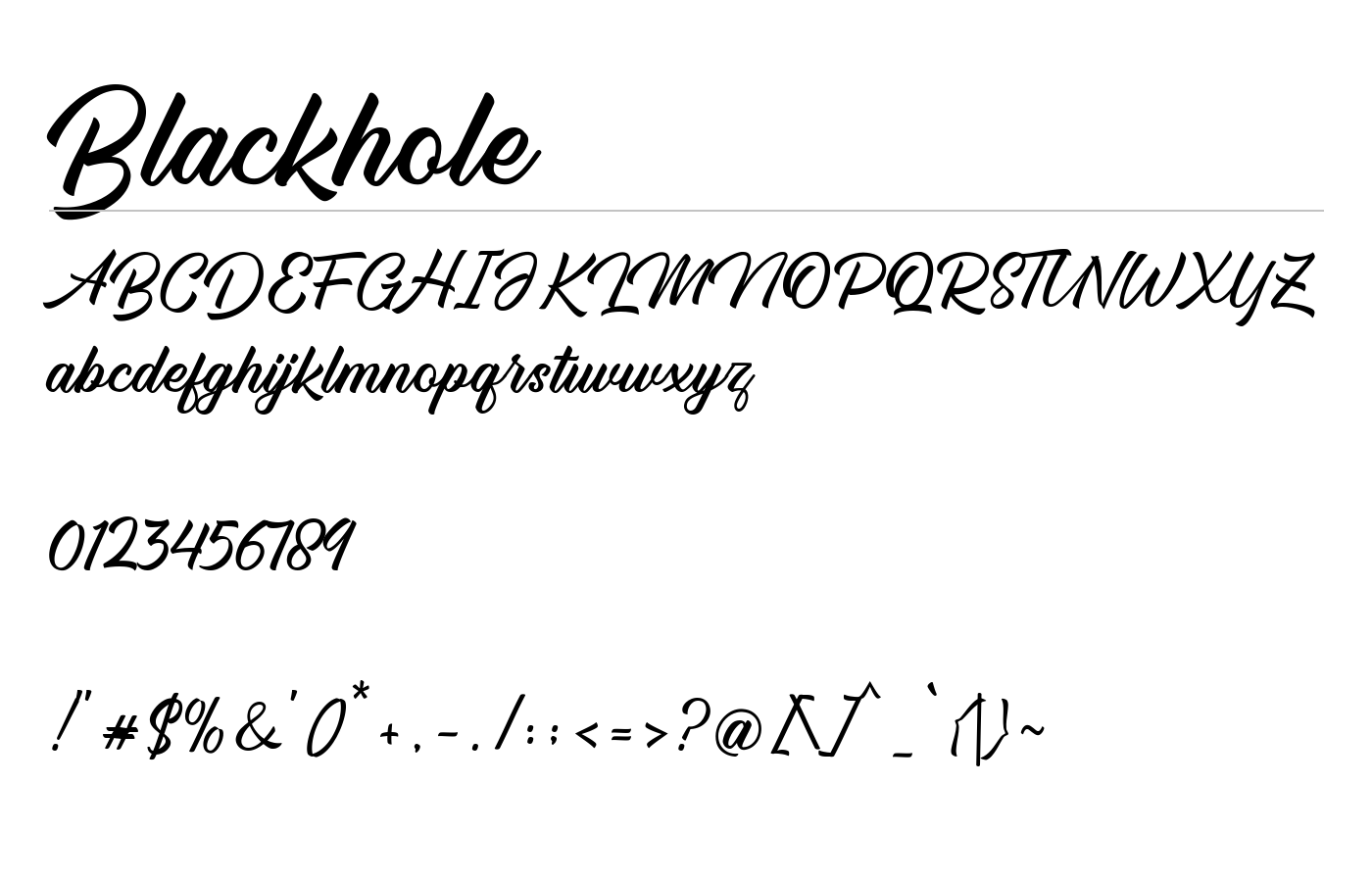
Blackhole Font is a lively and elegant script typeface with a smooth, flowing style that mimics natural handwriting. Its medium weight and moderate contrast create a charming, approachable feel, making it ideal for fashion, branding, invitations, and headlines where a personal, stylish touch is desired. This font works especially well in design projects seeking a blend of sophistication and warmth, thanks to its distinctive letterforms and crisp, legible curves.
Blackhole Font